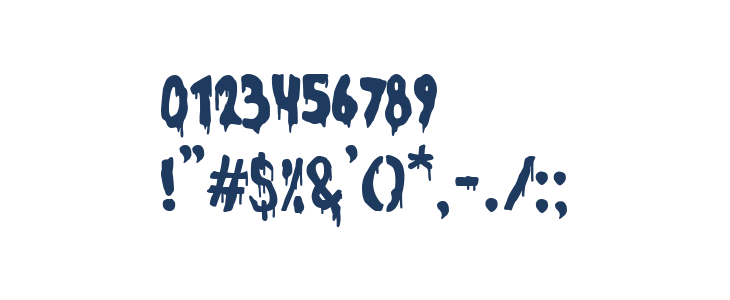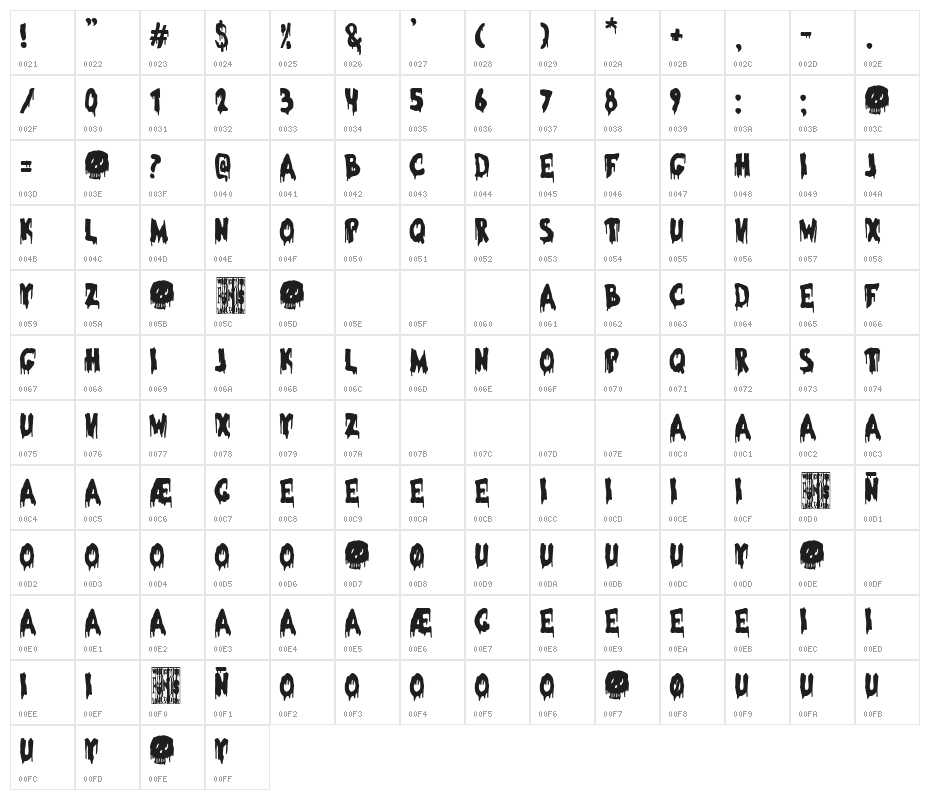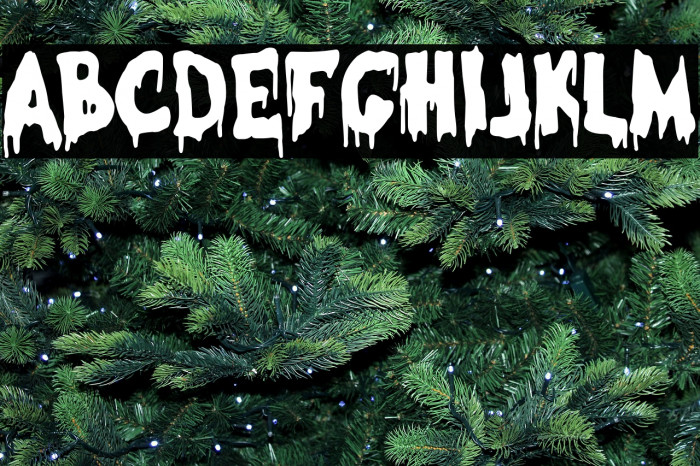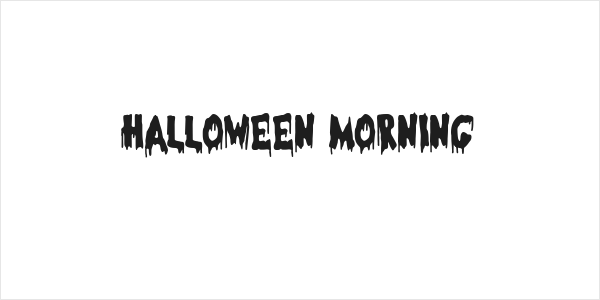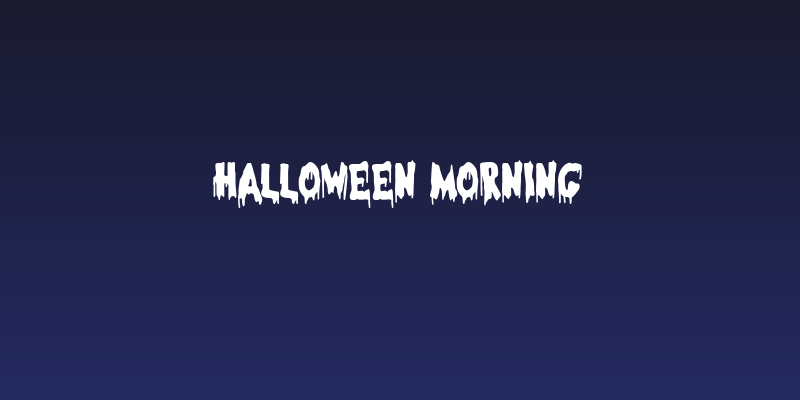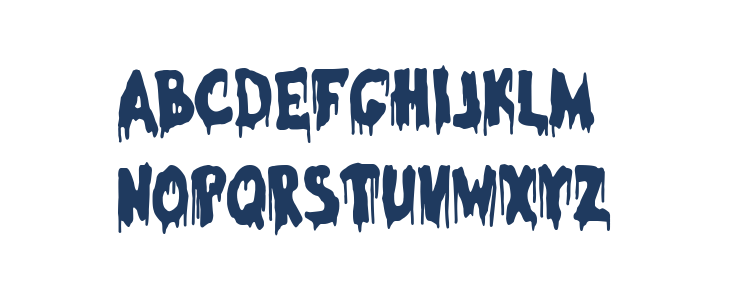
Halloween Morning Font
Halloween Morning Description
This font exudes a spooky and eerie vibe, perfect for Halloween-themed projects. The letters appear as if they are dripping, reminiscent of melting wax or blood, adding a chilling effect. The bold and thick strokes enhance its dramatic appearance, making it stand out in any design. Each character maintains a consistent style, with jagged edges and irregular shapes that contribute to its unsettling aesthetic. The numbers and special characters follow the same dripping motif, ensuring uniformity across all elements. This font is ideal for creating eye-catching headlines, posters, or invitations that require a touch of horror or mystery.
| Proposed Projects | Ideal for Halloween posters, horror movie titles, themed invitations, and spooky event flyers. |